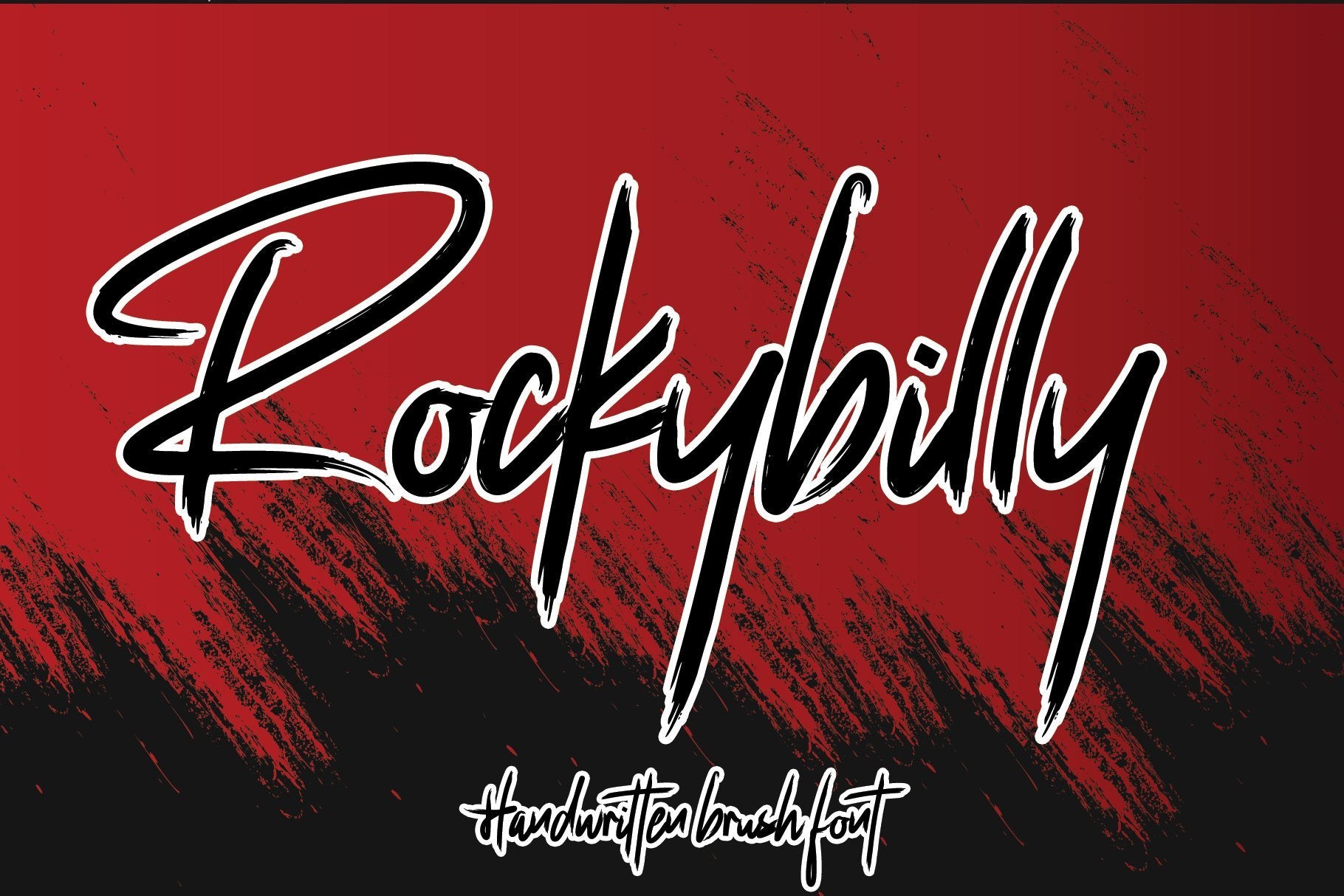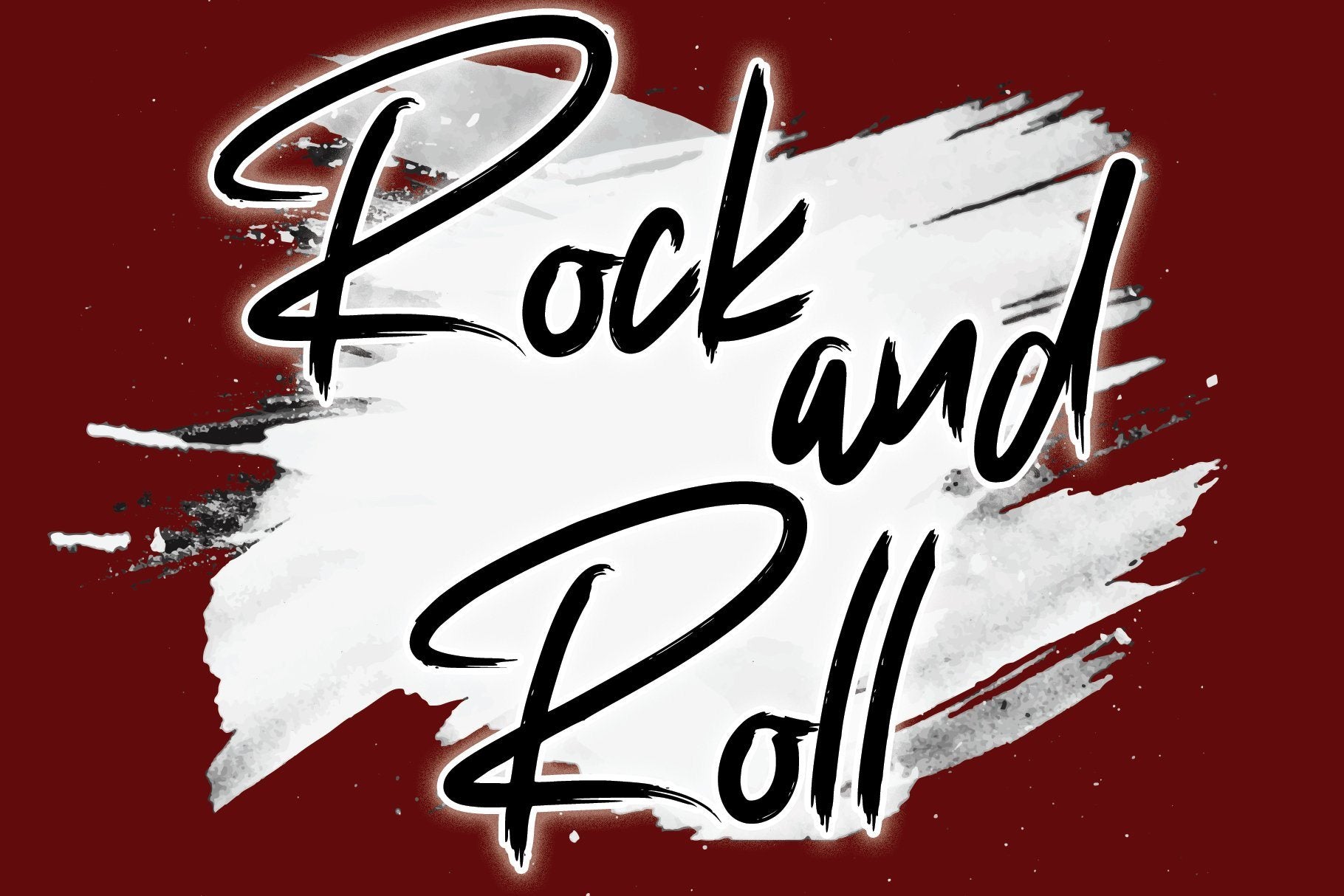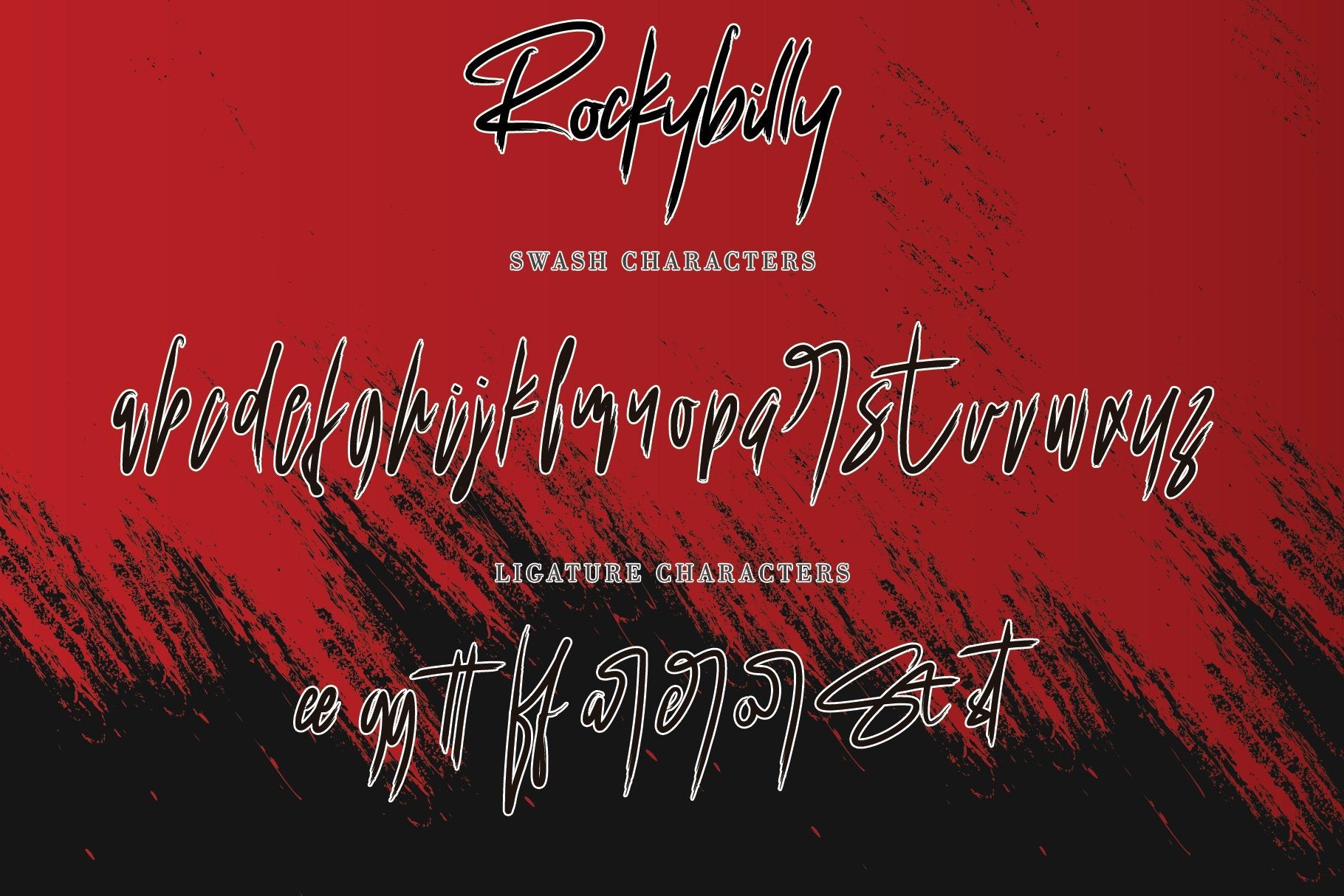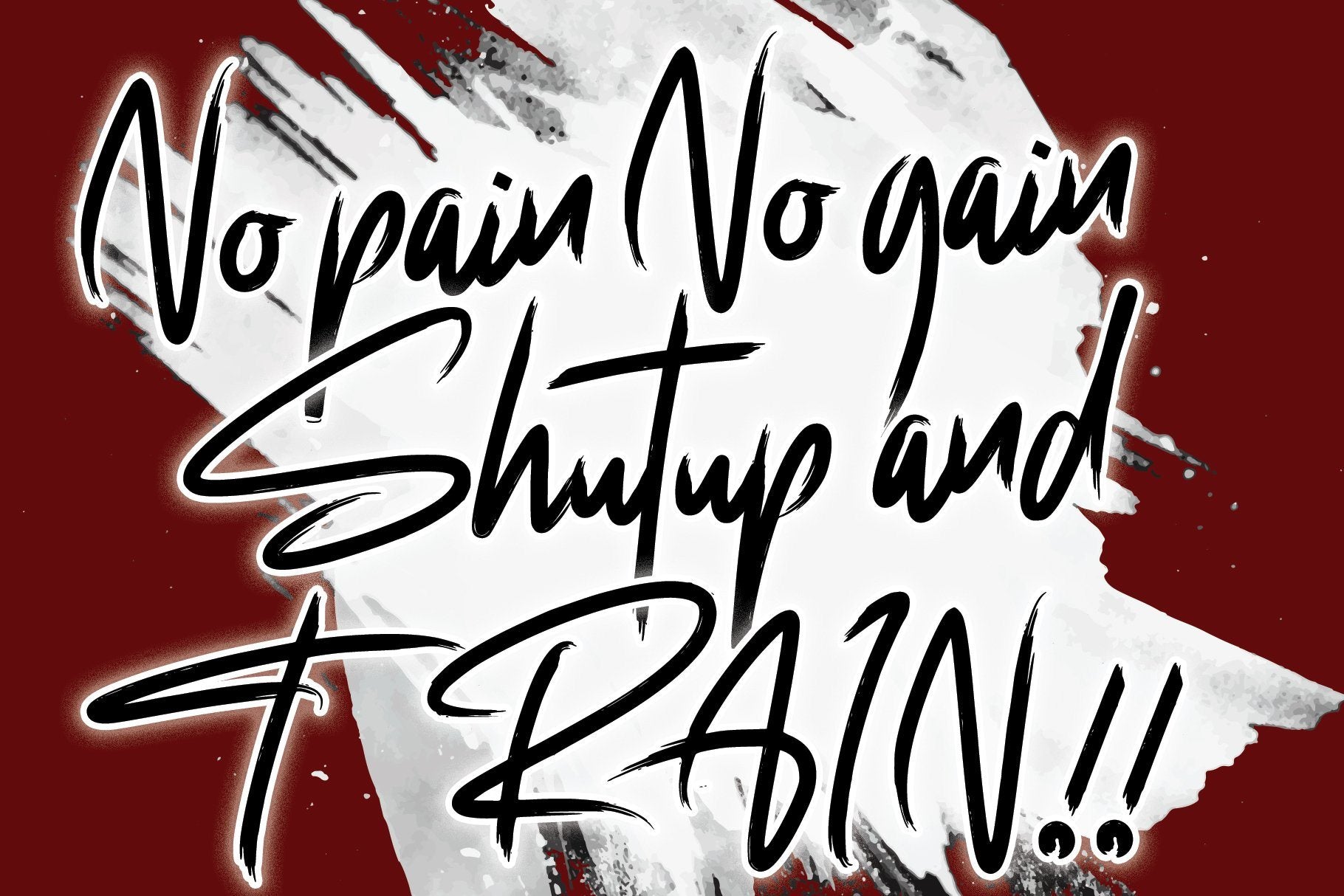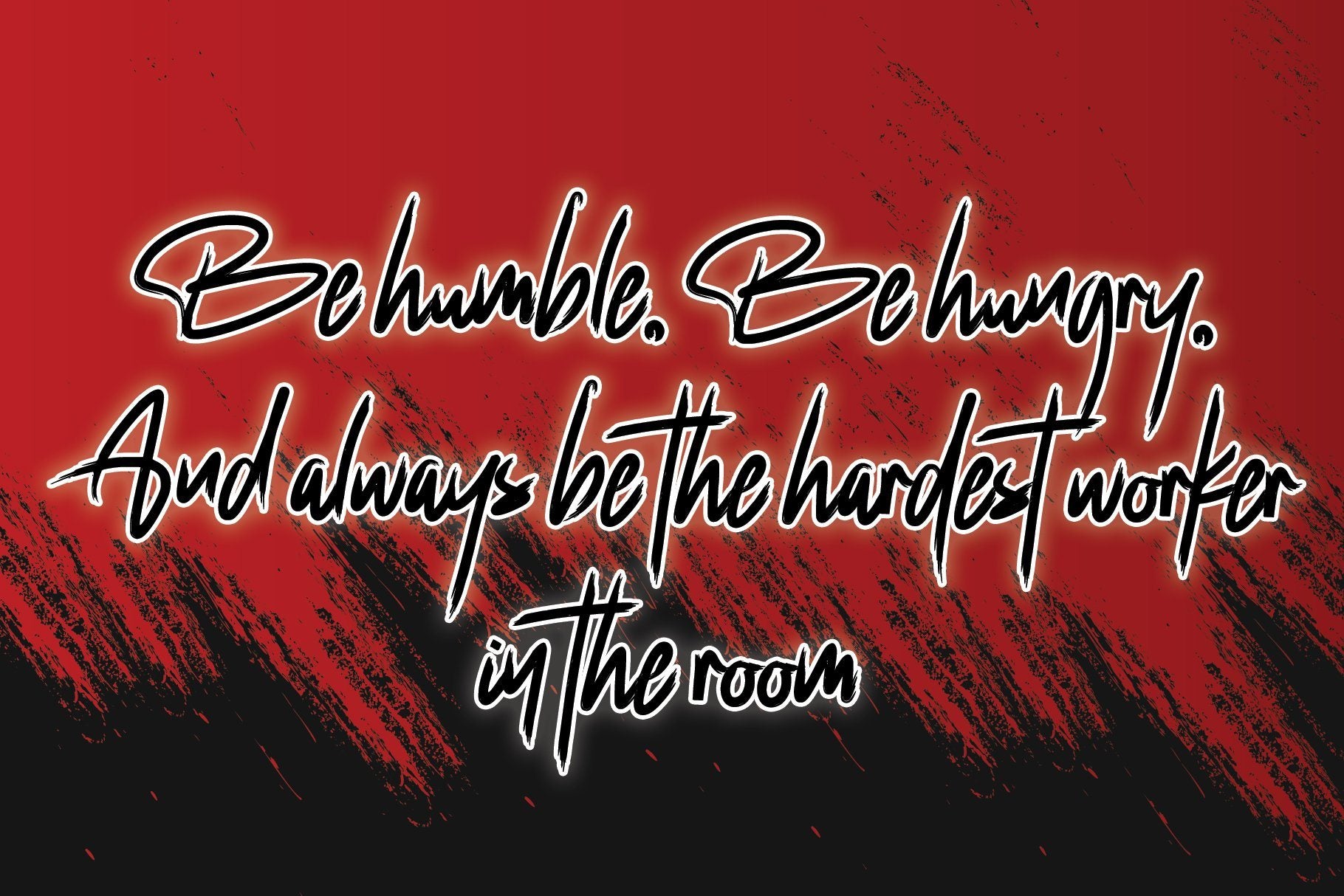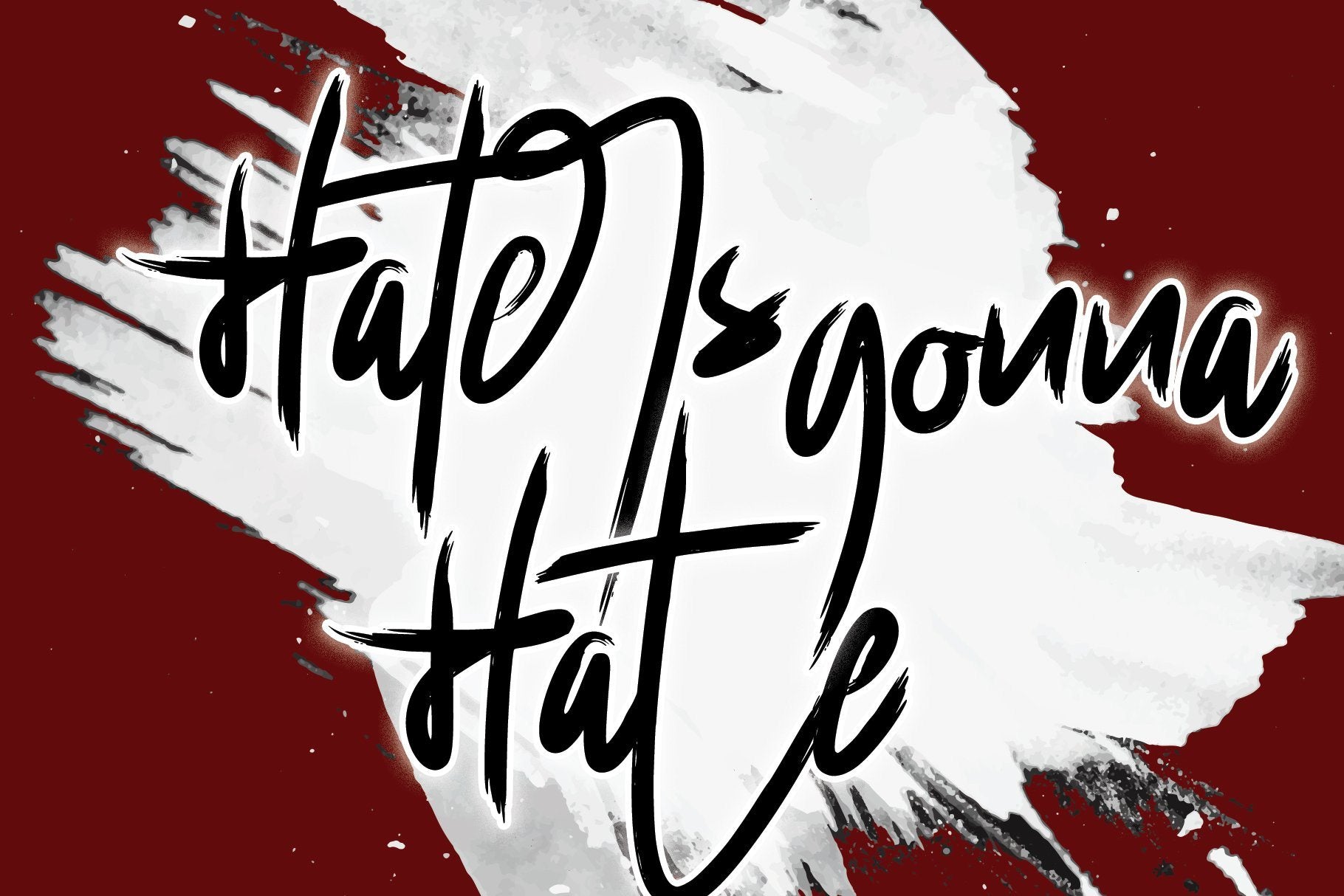
About Rockybilly
Rockybilly font is a super handwritten brush font bursting with energy. It features extra attention to quick strokes and sharp details. The features: Backstreet (TTF, OTF) Works both on Mac & PC Simple installations Swash & Ligature Support Silhouette Accessible in the Adobe Illustrator, Adobe Photoshop, Adobe InDesign, CorelDraw, even work on Microsoft Word. Support multilingual; ä ö ü Ä Ö Ü ß ¿ ¡ To stay up to date for my latest job, follow me and let’s be friends because there will be many promos. Our other products : BEST SELLER MILEADILA BEAUTIFUL KISSES ANGELIN GAMOS HERTINA JENNIE ANTIKA AURORA BLACK PINK SIGNATURE California Street BESTOWENS FAMILY